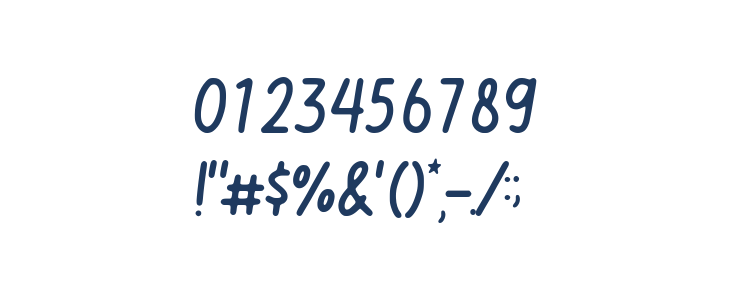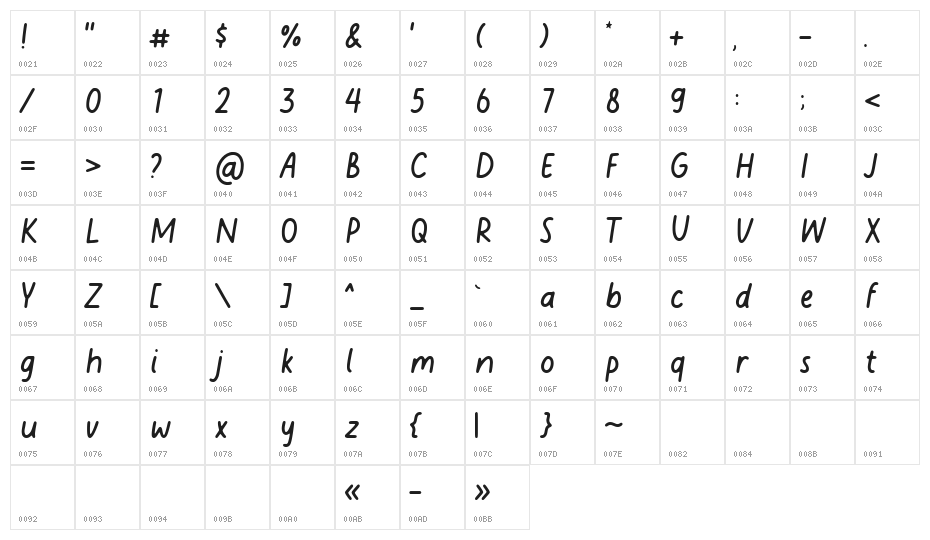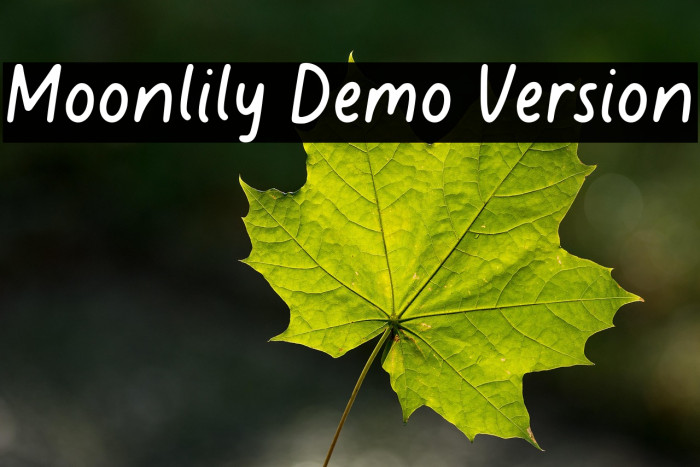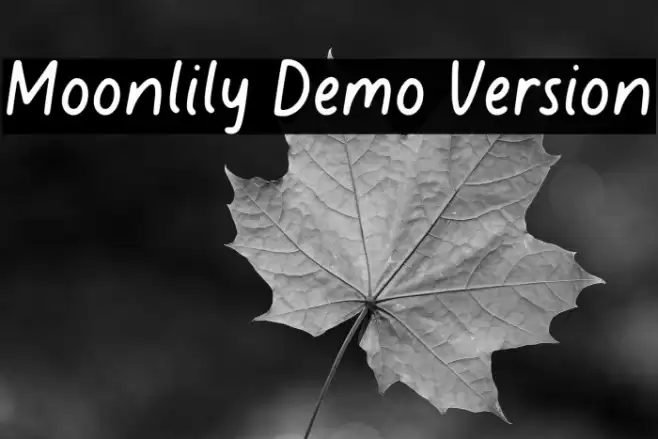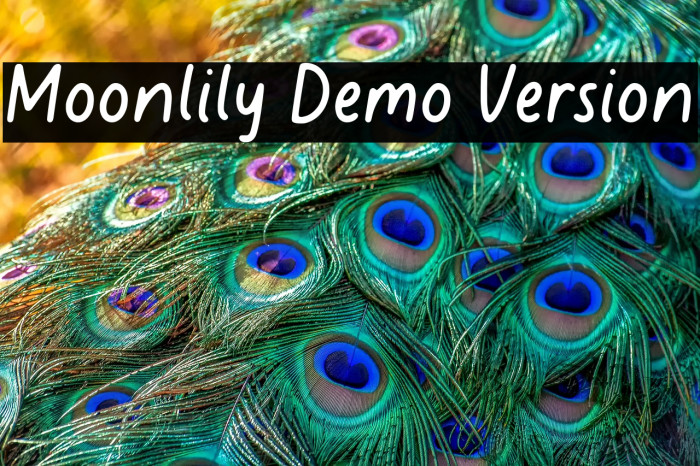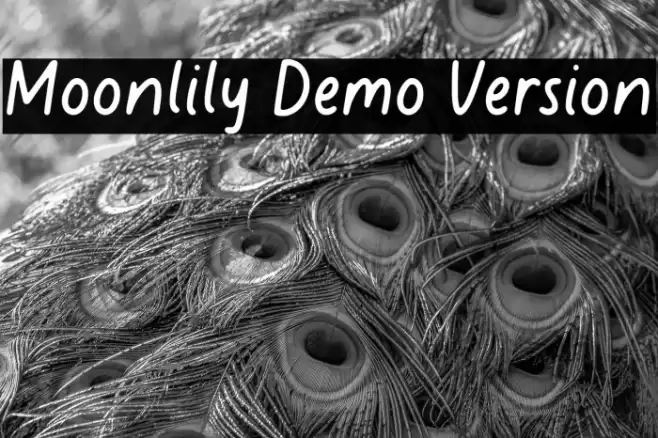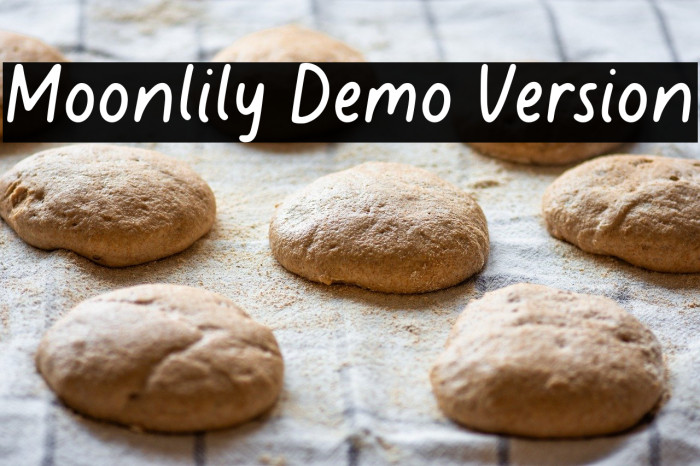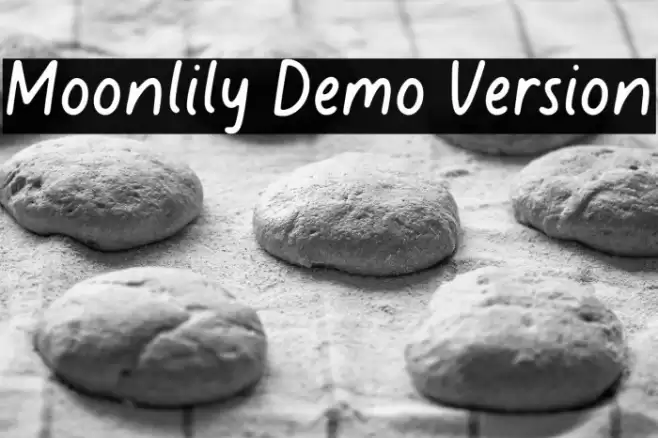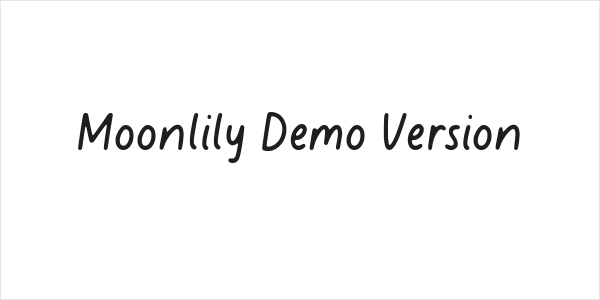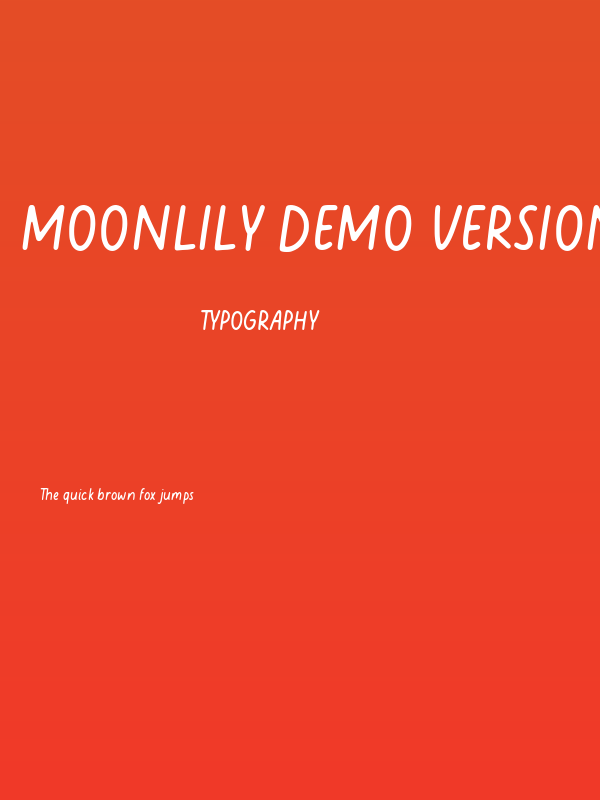
Moonlily Demo Version Font
Moonlily Demo Version Description
This font exudes a playful and casual handwritten style, characterized by its smooth and rounded letterforms. The strokes are consistent and fluid, giving it a friendly and approachable appearance. The uppercase and lowercase letters maintain a uniform height, which enhances readability while preserving the font's informal charm. The numerals and special characters are crafted with the same attention to detail, ensuring a cohesive look across all glyphs. This font's design is perfect for projects that require a personal touch, such as greeting cards, invitations, or social media graphics. Its versatility makes it suitable for both digital and print media, adding a unique flair to any creative endeavor.
| Proposed Projects | Ideal for greeting cards, invitations, social media graphics, and personal branding. |